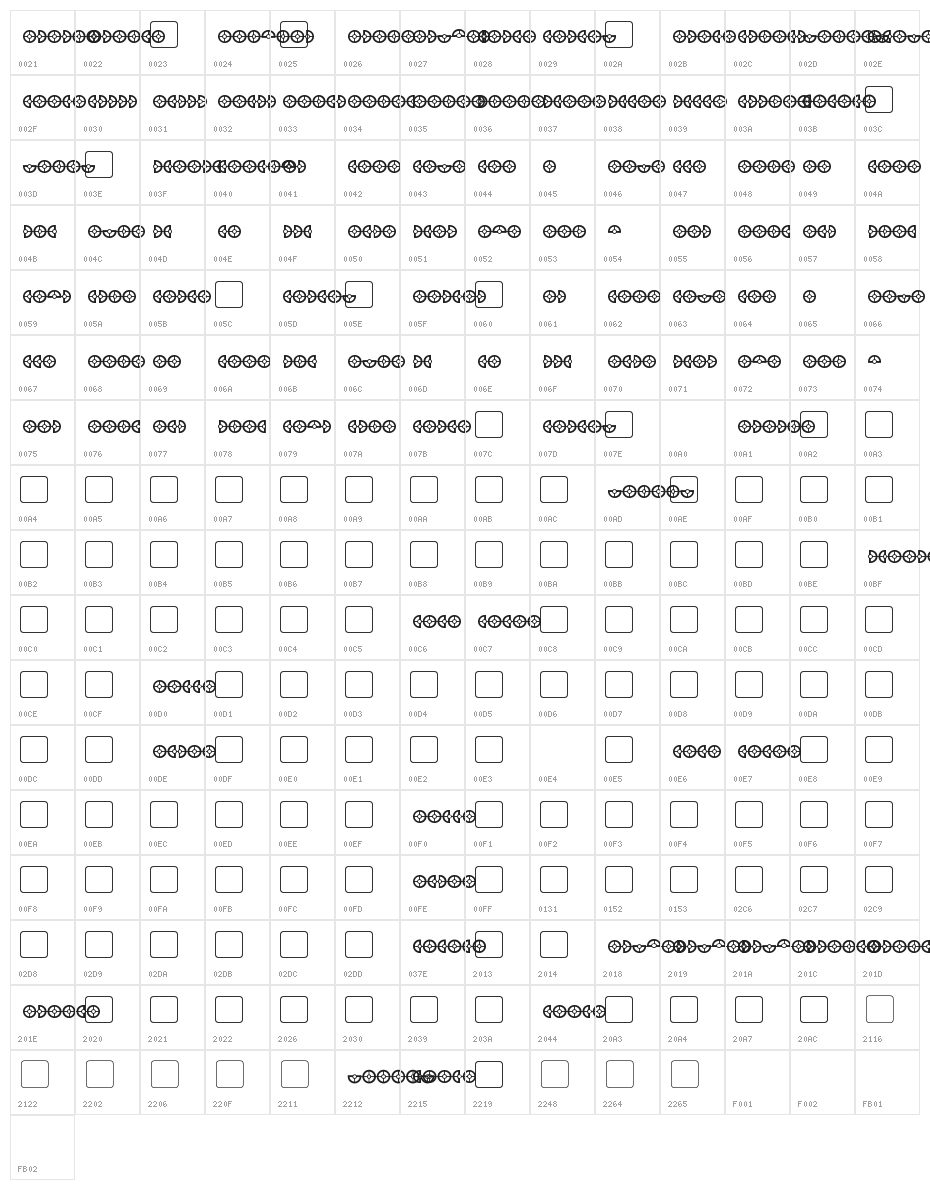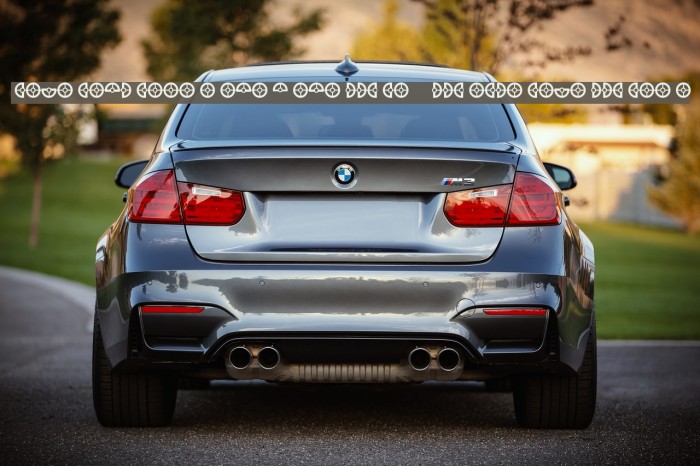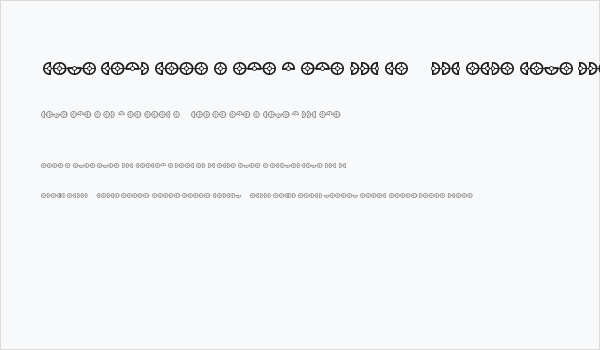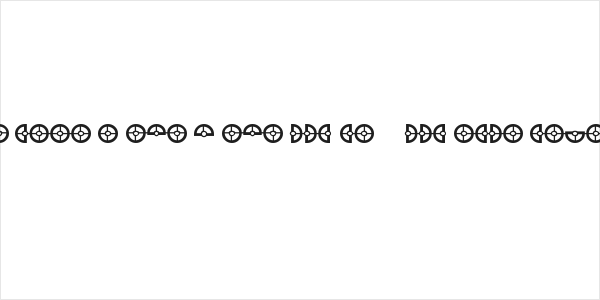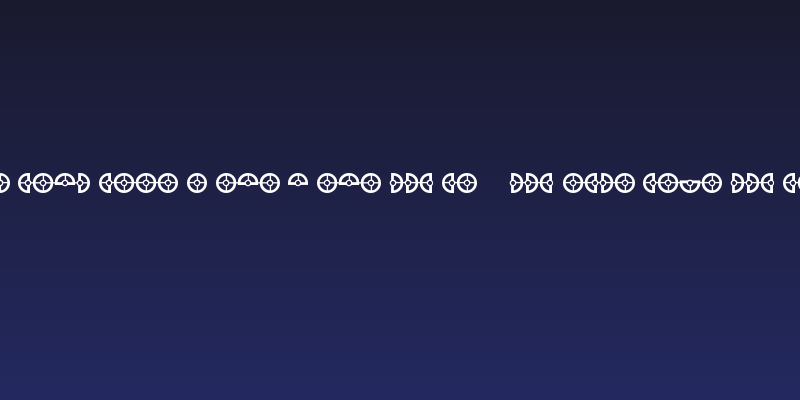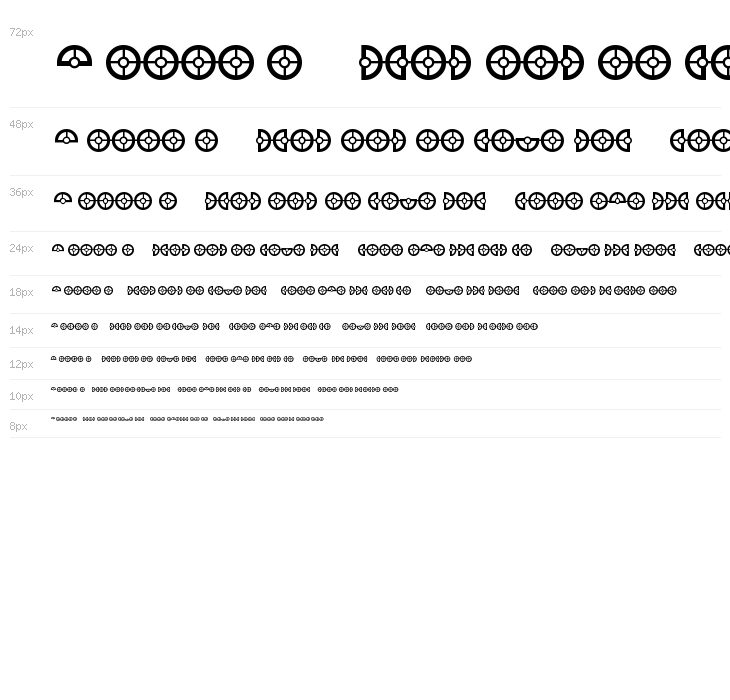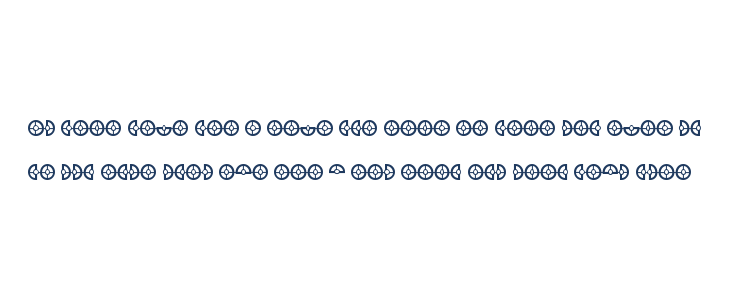
Cybertron OpCode Font
| Stile generale | Futuristic, Abstract |
| Caso d'uso | Logos, Posters, Thematic Designs |
| Progetti proposti | Ideal for sci-fi themed designs, video game interfaces, movie posters, or any project requiring a unique, alien-like typeface. |